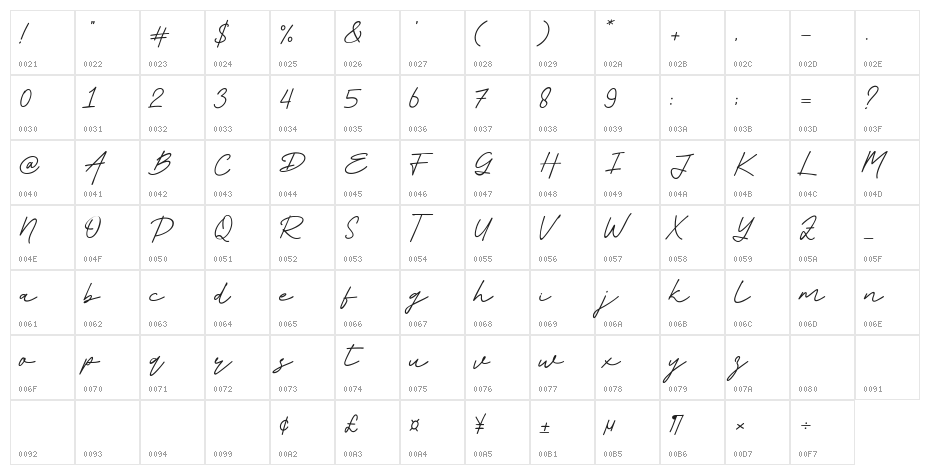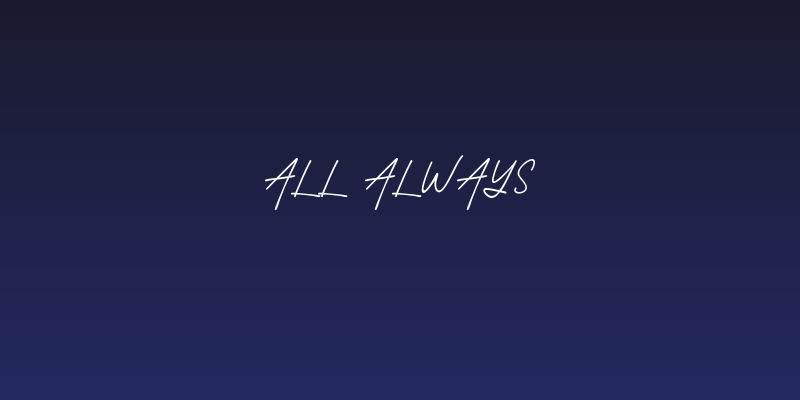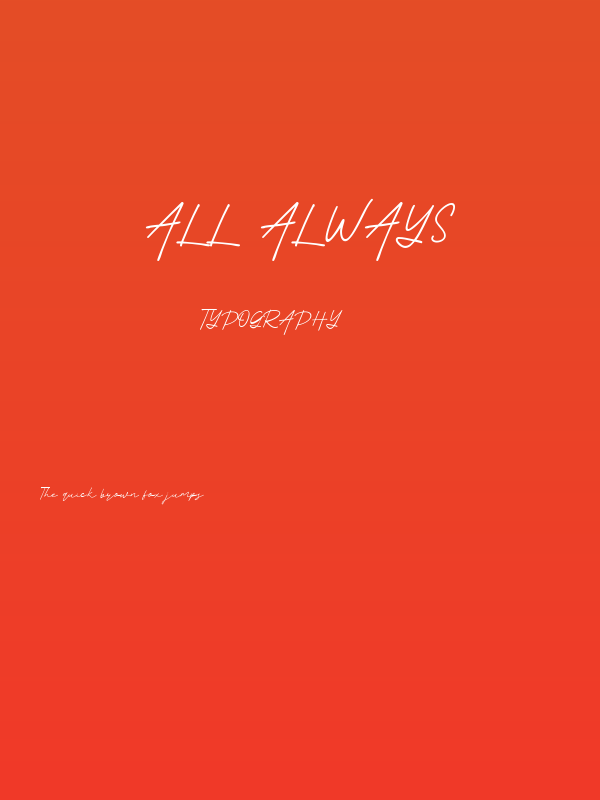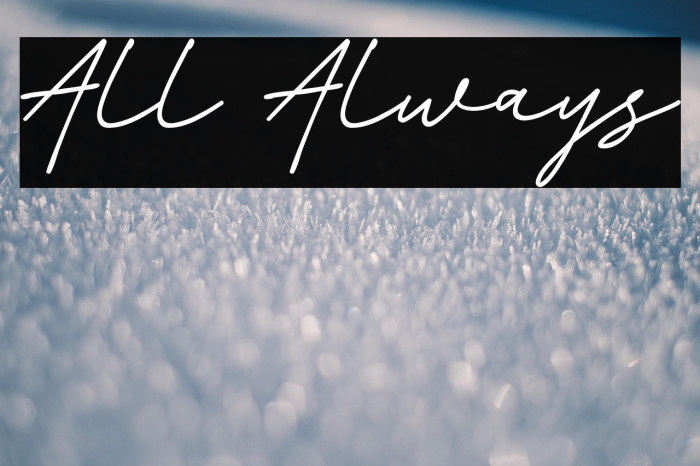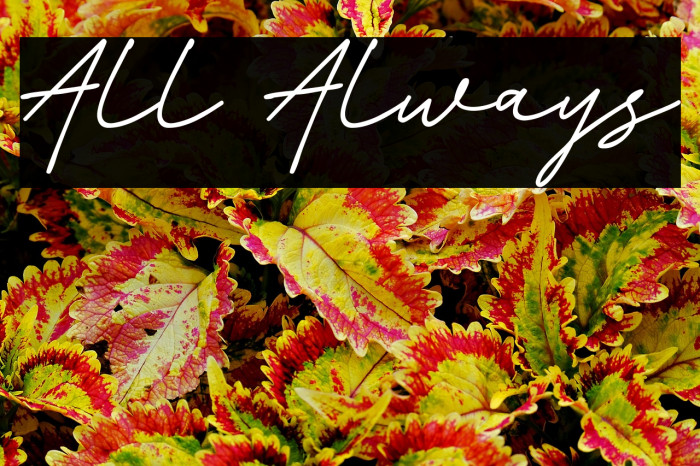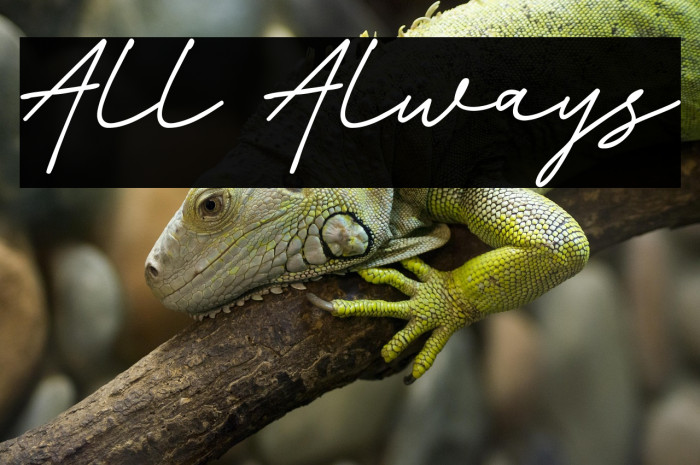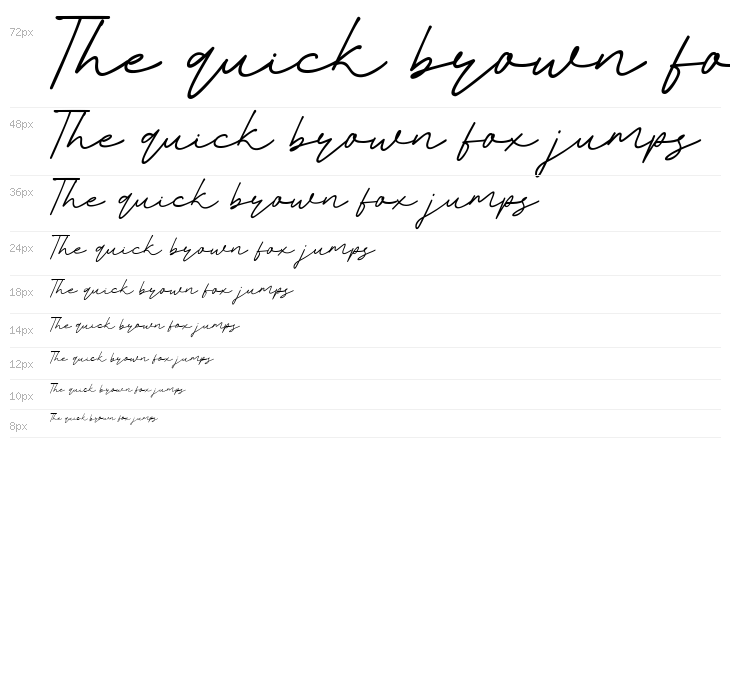
All Always Font
All Always Description
This font exudes a casual and elegant handwritten style, characterized by its fluid and connected strokes. The uppercase letters maintain a consistent height, while the lowercase letters exhibit a slight slant, enhancing the script's natural flow. Numbers and special characters are seamlessly integrated, maintaining the overall aesthetic. The font's design is both approachable and sophisticated, making it suitable for a variety of creative applications.
| Proposed Projects | Ideal for wedding invitations, greeting cards, personal branding, and social media graphics. |